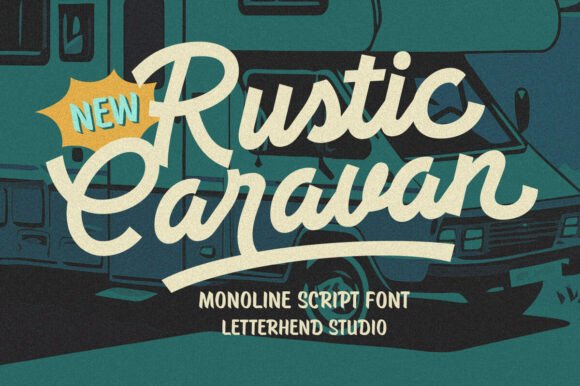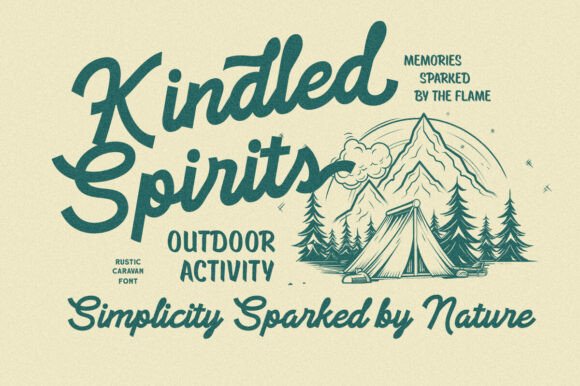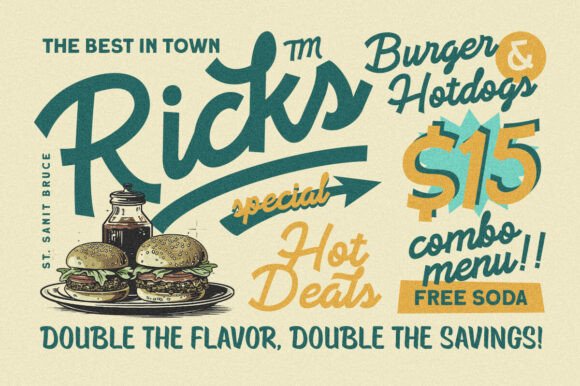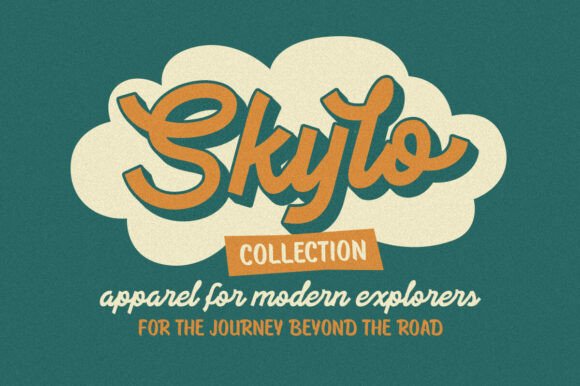
Rustic Caravan Font: A Monoline Script for Vintage Logo Design
About the Rustic Caravan Font
Experience the unique personality of Rustic Caravan Font, a font designed for impact. Rustic Caravan is a casual monoline script display font. This font perfectly made to be applied especially in logo, and the other various formal forms such as invitations, labels, logos, magazines, books, greeting / wedding cards, packaging, fashion, make up, stationery, novels, labels or any type of advertising purpose.
Rustic Caravan’s casual, monoline style excels in headlines, short text blocks on packaging, and branding applications where a touch of relaxed elegance is desired. It works particularly well for projects with a handcrafted or vintage aesthetic, such as coffee shops, boutiques, or artisanal food brands. However, its thin strokes and script nature make it unsuitable for body text or UI elements where high readability is paramount.
For optimal visual balance, pair Rustic Caravan with a clean sans-serif like Montserrat for a modern contrast, or a classic serif such as Garamond for a more traditional feel. A geometric sans-serif like Futura could also provide a striking juxtaposition. Avoid pairing it with other script fonts, as this can lead to visual clutter.
The font projects a friendly, approachable, yet sophisticated personality. Its casual charm makes it ideal for conveying a sense of authenticity and warmth without sacrificing visual appeal.
Rustic Caravan Font Usage Examples
Rustic Caravan Font Example